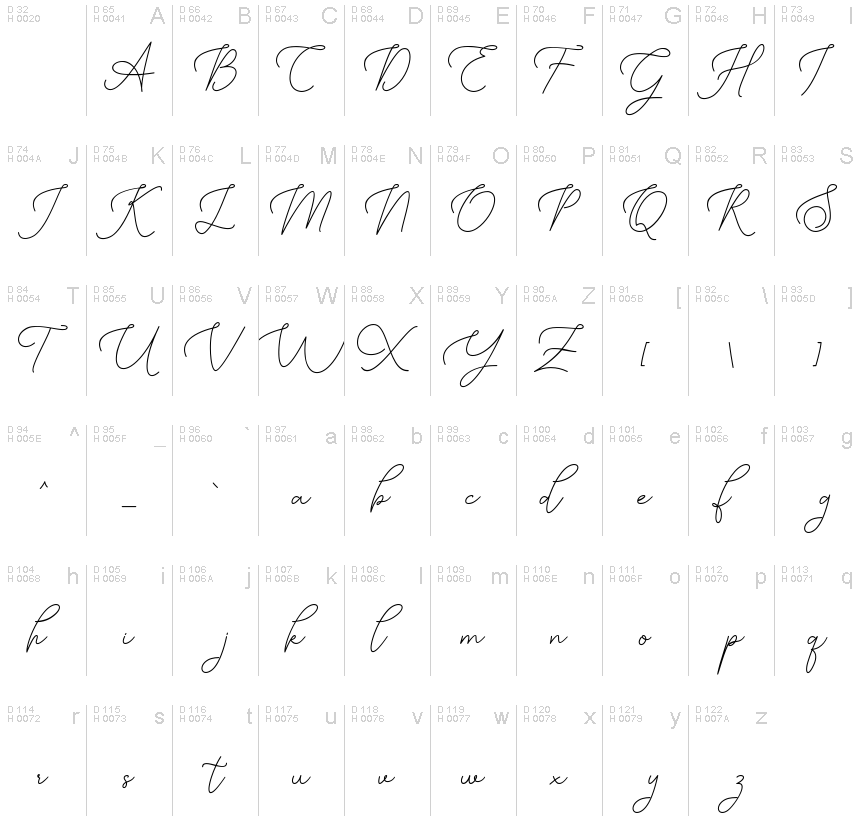
Manhattan Signature
Manhattan Signature by Sarif Letter is the perfect handwritten font for your creative projects. This extra-light typeface exudes elegance and sophistication, making it ideal for wedding invitations, luxury brands, and high-end fashion magazines. Its delicate strokes and curves lend a personal touch to any design, adding a human element that draws in the eye. Whether you're working on branding materials or social media graphics, Manhattan Signature will elevate your work to new heights. Let this gorgeous font be the signature touch that sets your project apart from the rest!